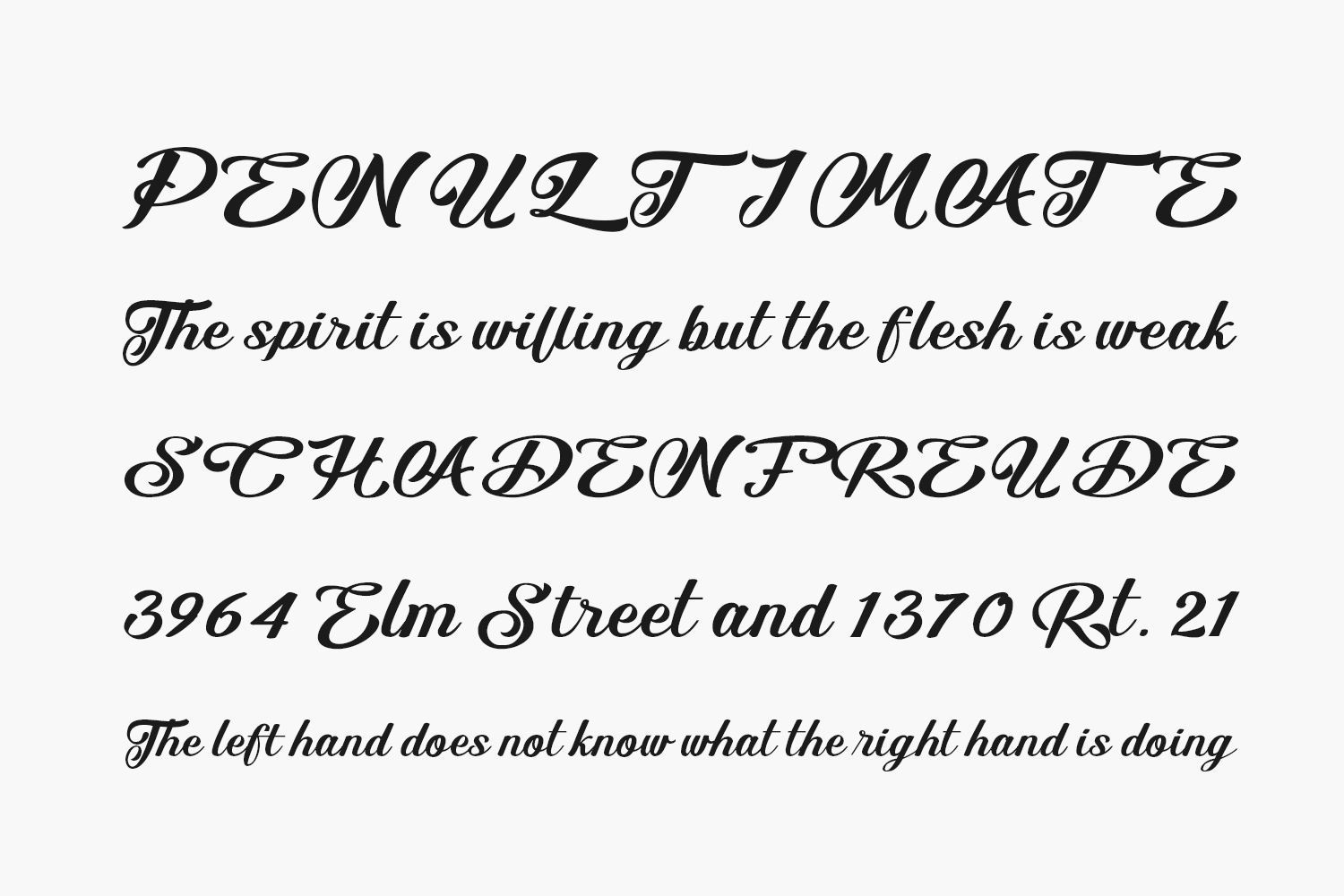
The Athalita Free Font is a brush typeface. It has a classy and charming look while maintaining its timeless feel. The Athalita Free Font was designed by Muh. Taufiq Hidayatullah and is free for personal use only. Please purchase the full version for commercial use.
Designed by Muh. Taufiq Hidayatullah